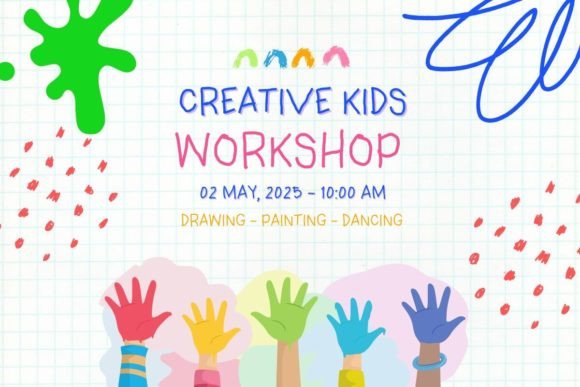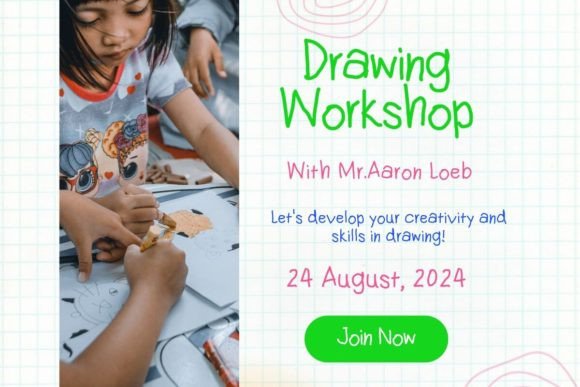
Kindergarten School Font
Unleash your creativity with our Cute Handwritten Font! Ideal for bold and adventurous souls, this Kindergarten Font adds a playful twist to your projects. Perfect for preschool crafts, kids’ art, and school activities, our Preschool Font effortlessly captures the whimsy of childhood. Designed to be irresistible and charming, this Cute Font is your go-to for unforgettable designs. Dive into the world of endless possibilities and make each creation stand out! Get your Children Font today and let your imagination run wild!